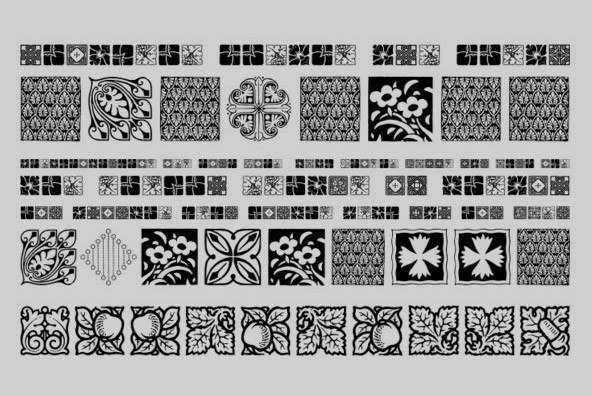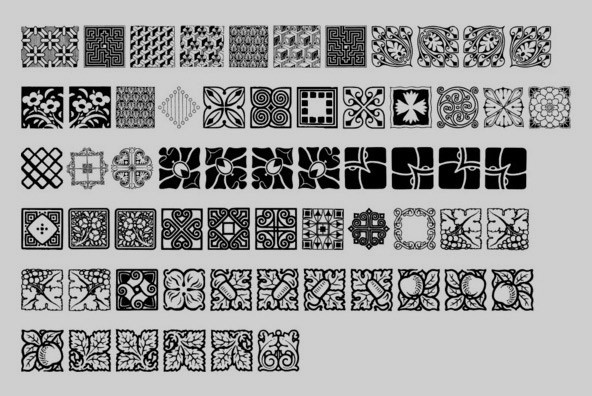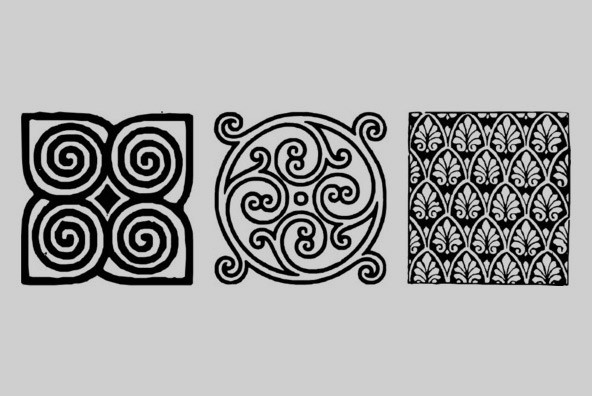
A nice mix of 62 decorative tile images. Designs are reminiscent of rubber stamps of architectural tiles found in historical homes and other buildings through the ages and printed devices from old catalogues.
A nice mix of 62 decorative tile images. Designs are reminiscent of rubber stamps of architectural tiles found in historical homes and other buildings through the ages and printed devices from old catalogues. Simple enough to add interesting detail to just about any design. From invitations and greeting cards to book jackets, labels or fabric.